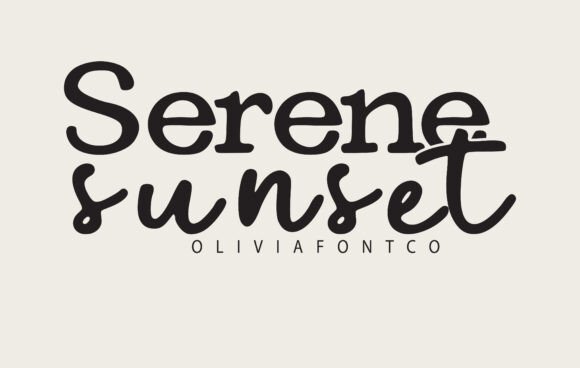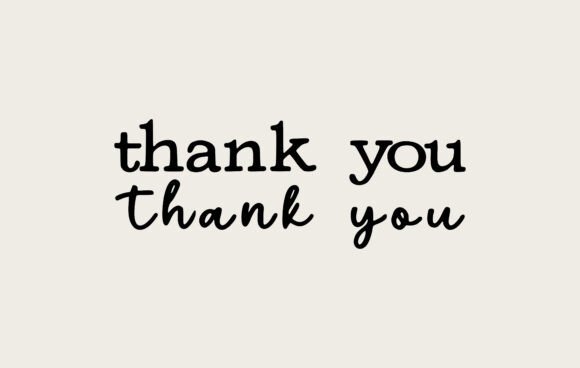
Introduction to Serene Sunset Font Font
Fonts play a crucial role in design, and the Serene Sunset Font font is a typeface that brings both character and versatility to any project. Whether you’re working on a branding project, a website, or a print design, the Serene Sunset Font font offers a unique style that can elevate your work.
| π Font Name | Serene Sunset Font |
| π€ Author | OliviaFontCo |
Serene Sunset is a beautifully balanced font duo that pairs a soft serif with a smooth, handwritten scriptβperfect for designs that evoke calm, warmth, and natural beauty.
Ideal for lifestyle branding, travel blogs, quotes, and stationery, this font brings a gentle charm to any layout Serene Sunset captures the tranquility of golden hours and peaceful reflections.
Key Features of Serene Sunset Font Font
Why Choose Serene Sunset Font Font?
The Serene Sunset Font font is more than just a typeface β it’s a design tool that helps you communicate your message with style and clarity. Its unique character set and versatile design make it suitable for a wide range of applications, from elegant invitations to bold headlines.
With its carefully crafted letterforms and balanced proportions, the Serene Sunset Font font ensures readability and visual appeal across all mediums.
What makes Serene Sunset Font font special?
The Serene Sunset Font font stands out with its unique design, exceptional readability, and versatility across various design applications.